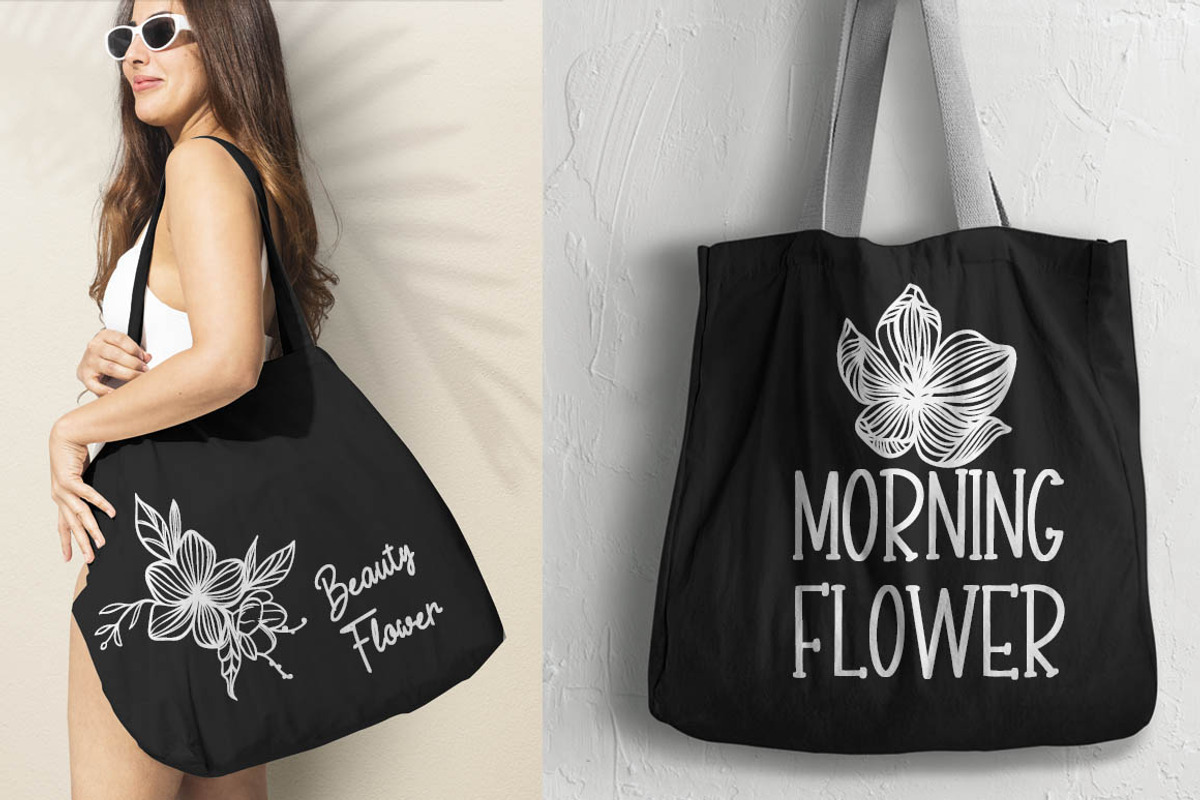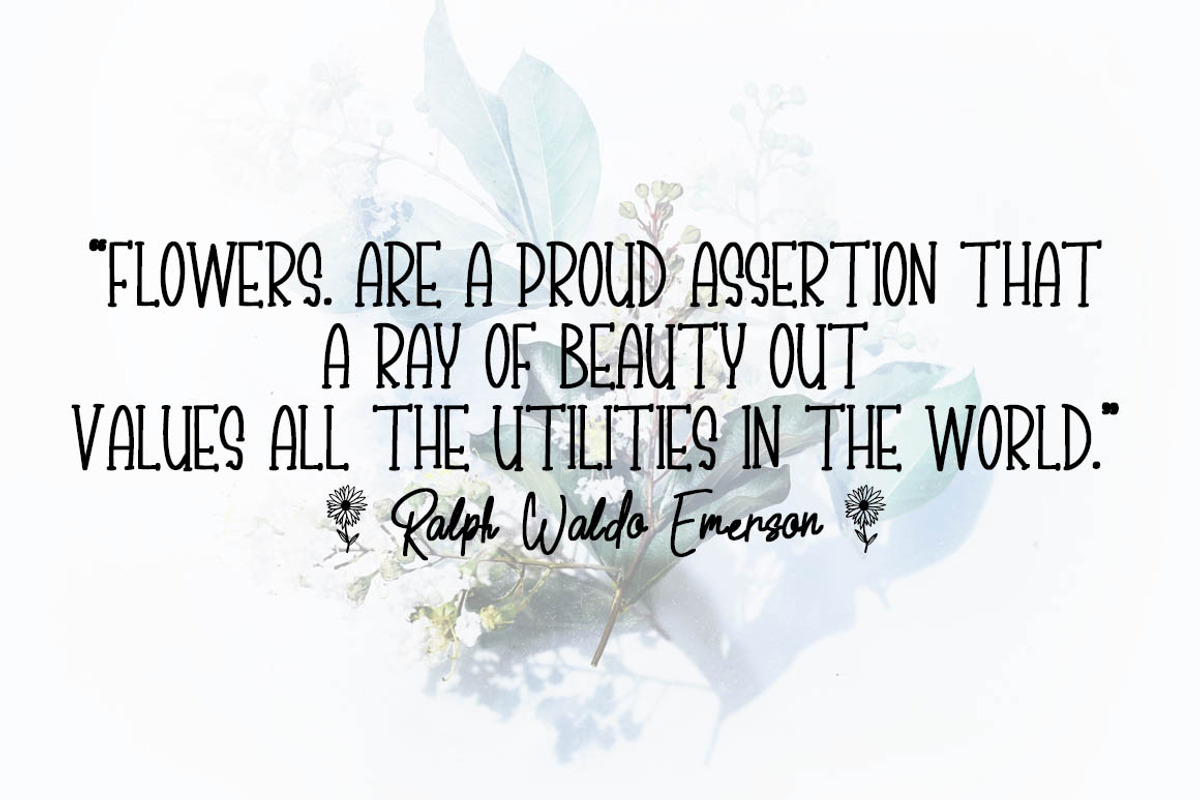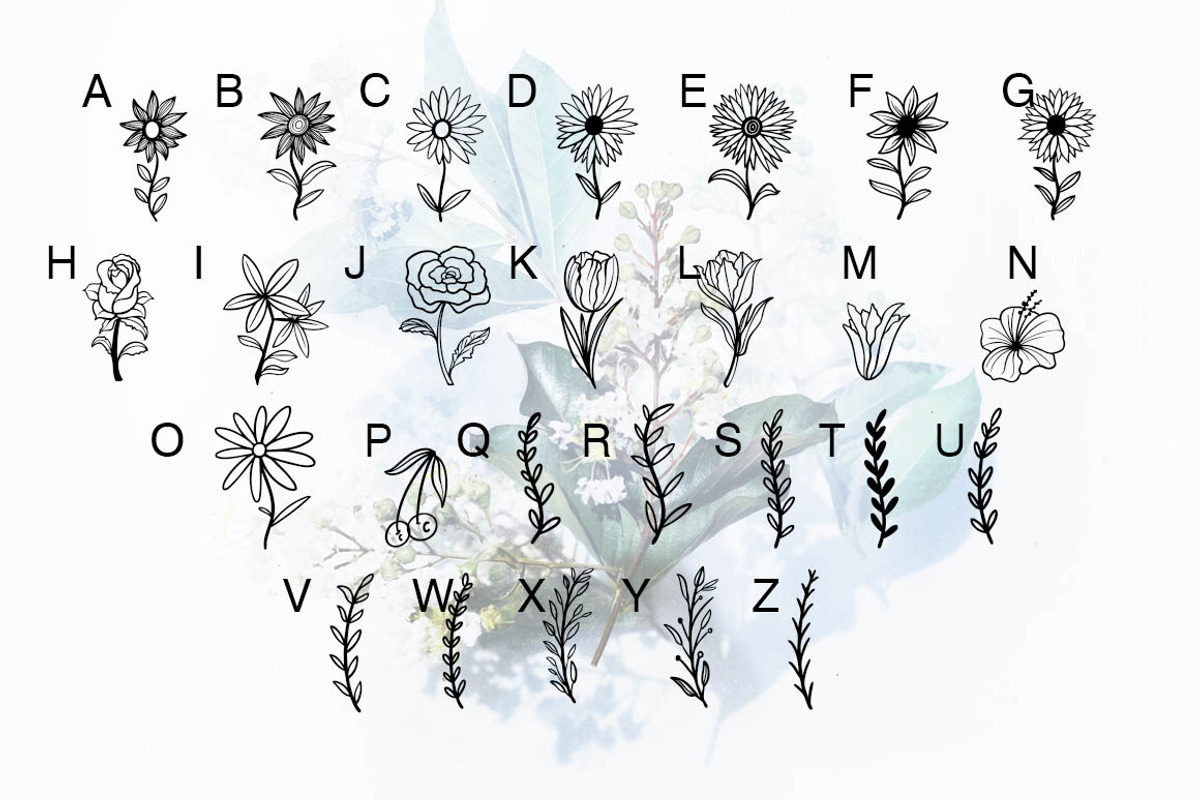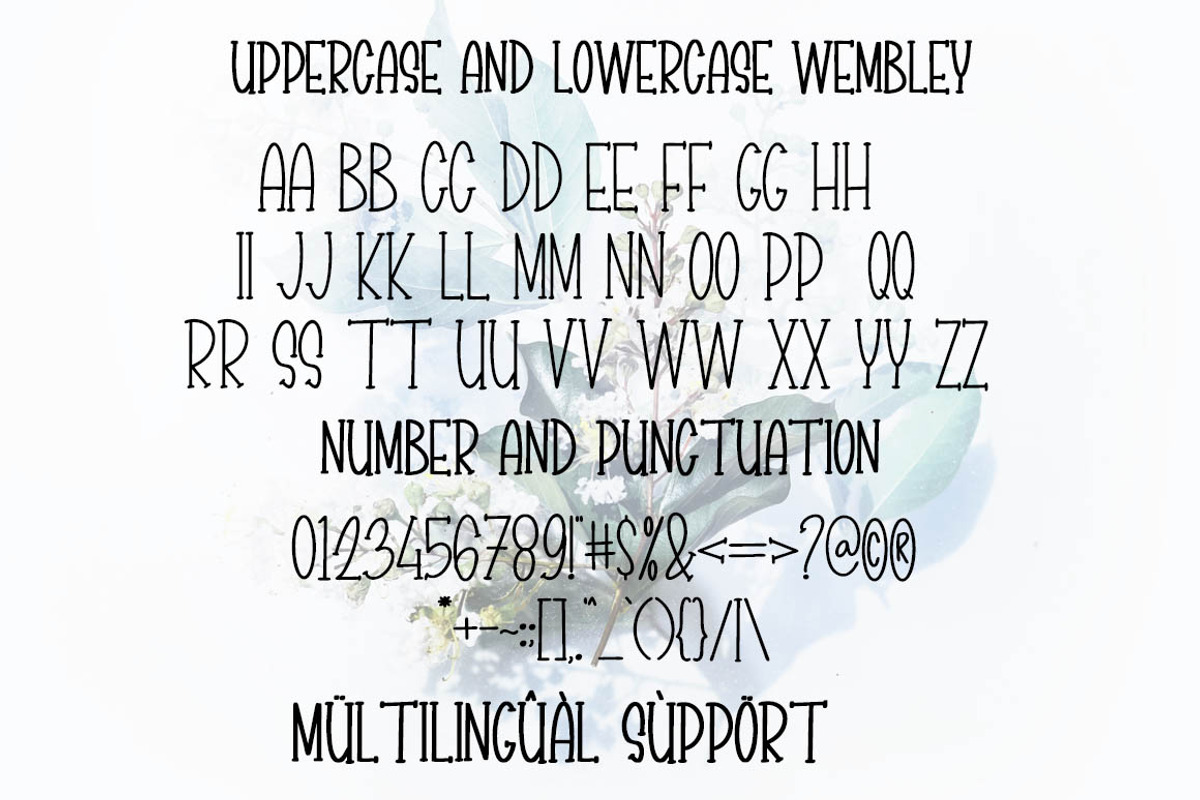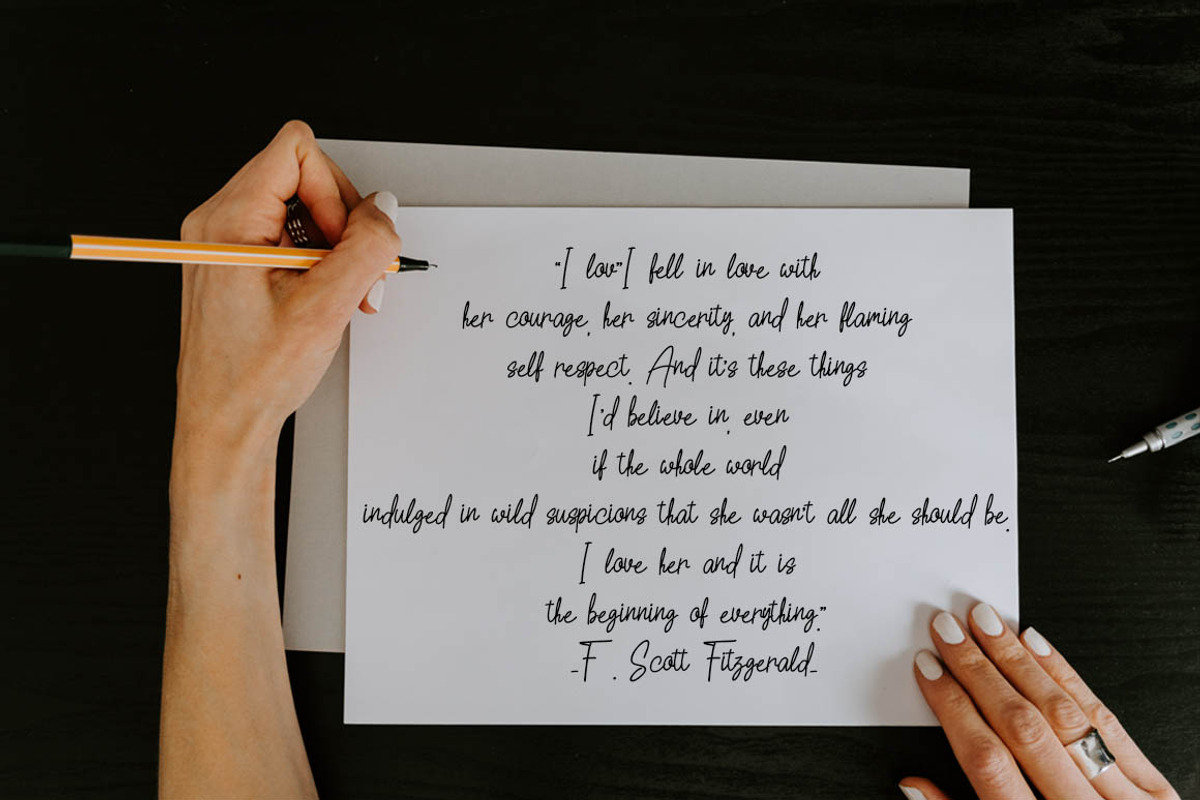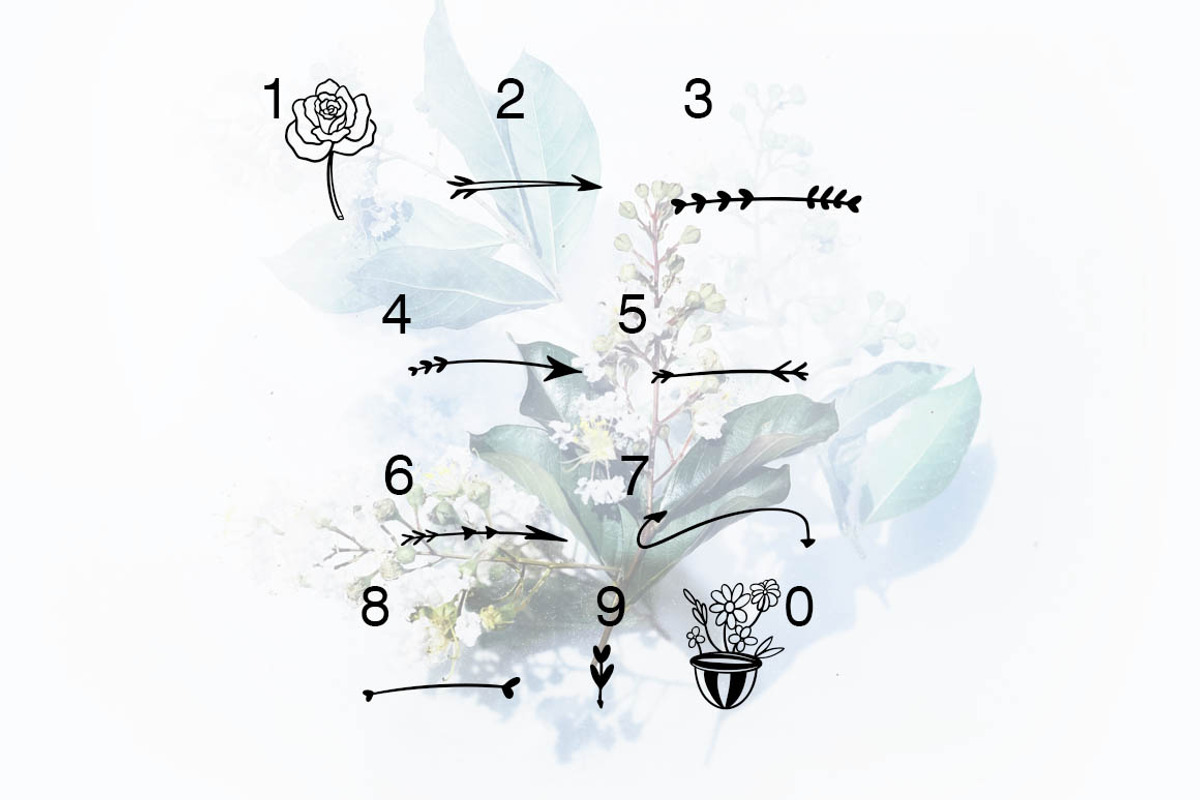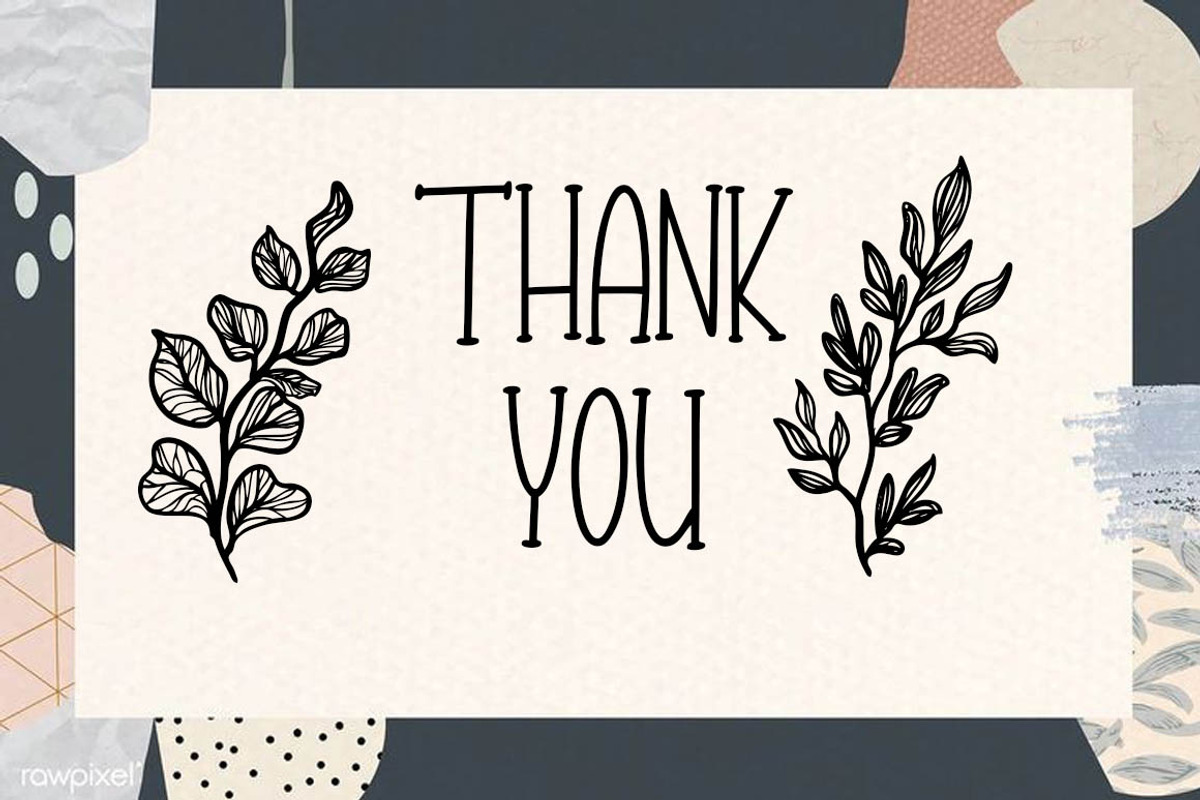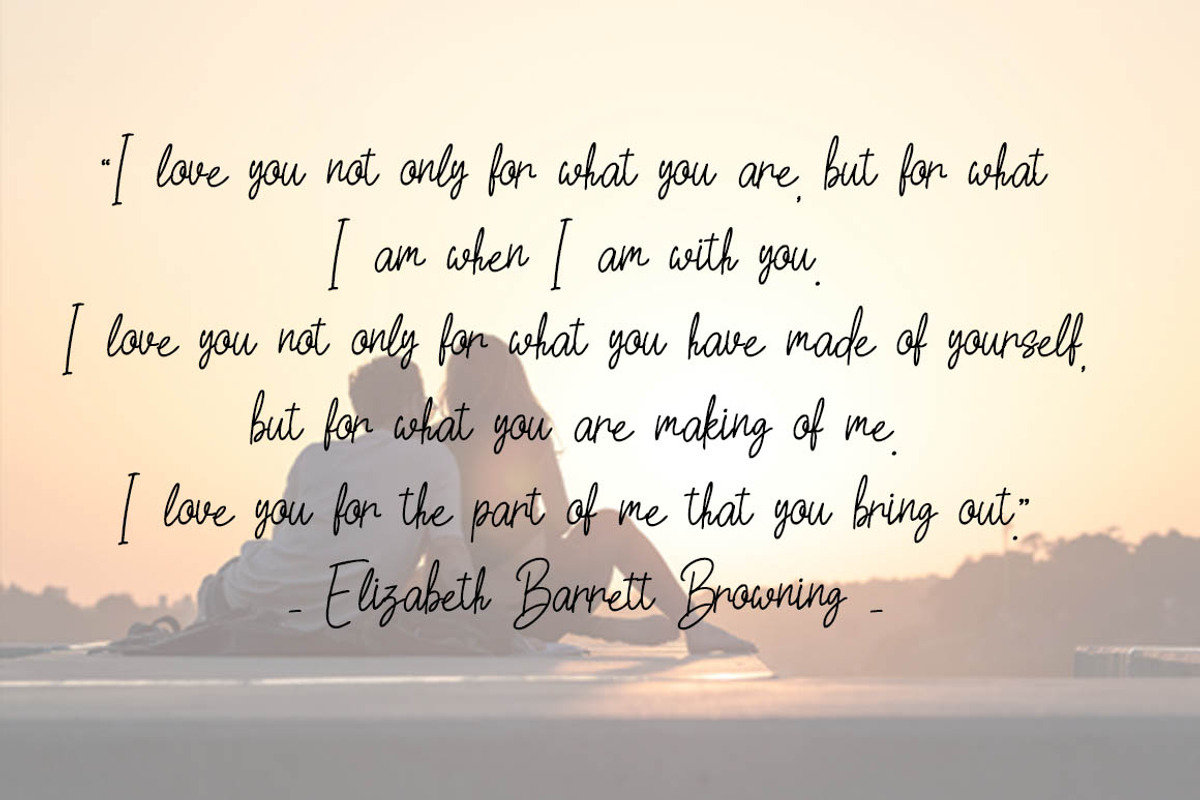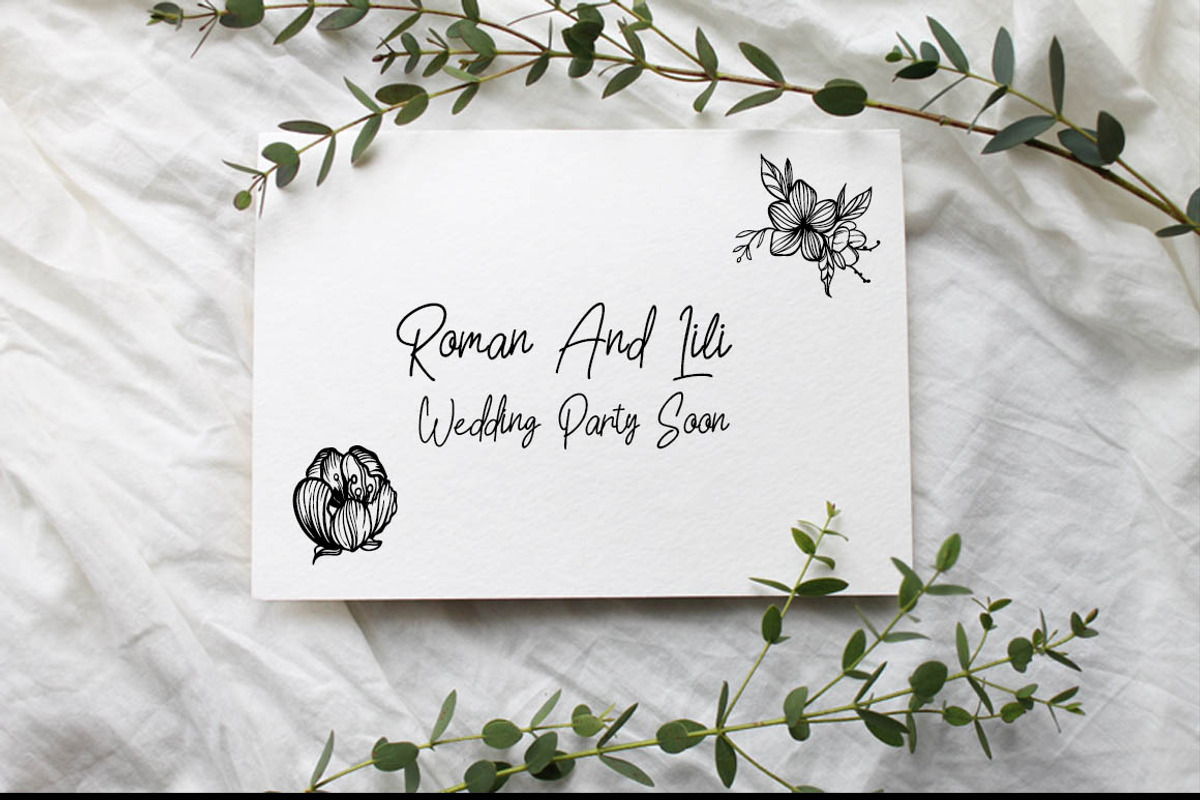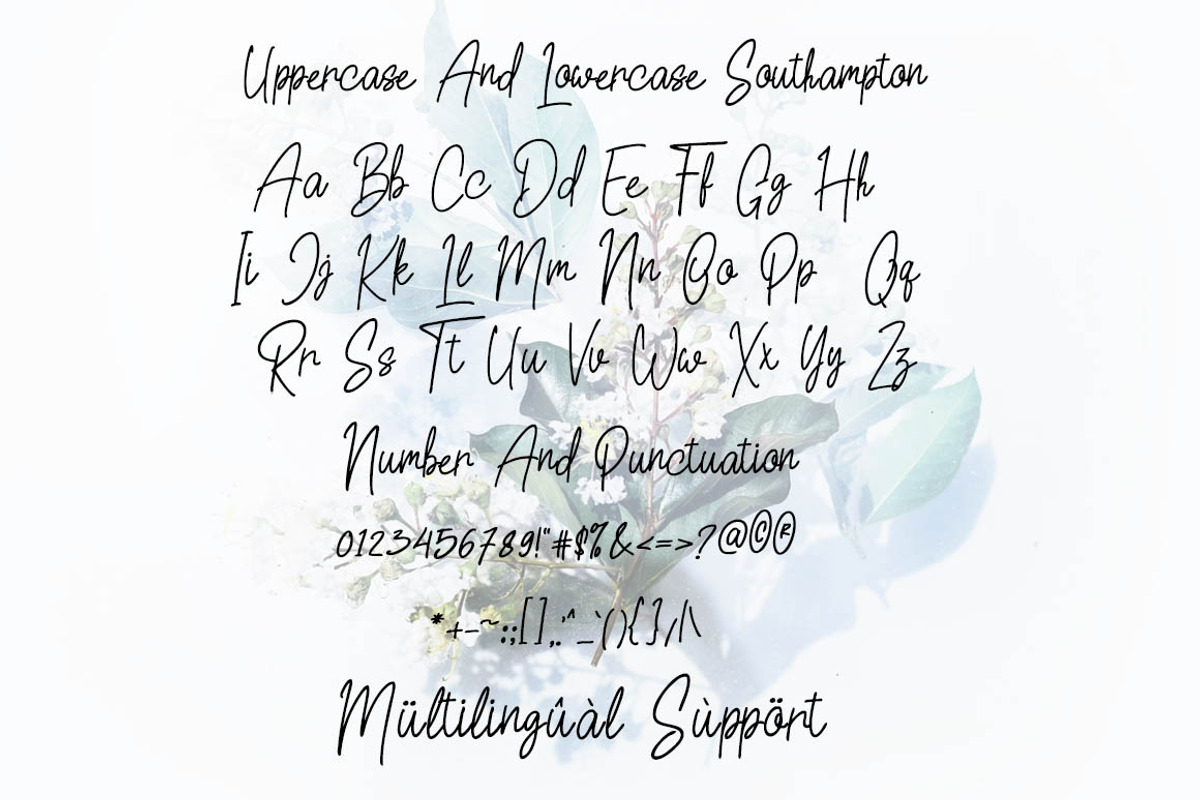
Southampton
Southampton is a Font duo, unique, handwritten font and extras font and very elegant font for brand and logo designs. Based on our experience as graphic designers working in many companies, we are often asked to design a logo with a unique style but with an elegant shape. So, we tried to brainstorm and come up with this font to get ideas out. It is perfect for ,Wedding Invitation, Romantic, BRANDING and LOGO DESIGN. You will get a classy, elegant, and of course unique logo with this font. To make it look even more unique icon plant font so you can create any amazing design you want. Southampton also includes the full set: -uppercase and lowercase -multilingual symbol -number -punctuation -Sun Flower Extras Font -Southampton Font -Wembley Font